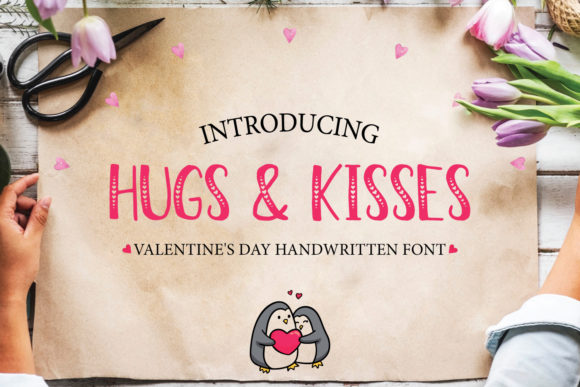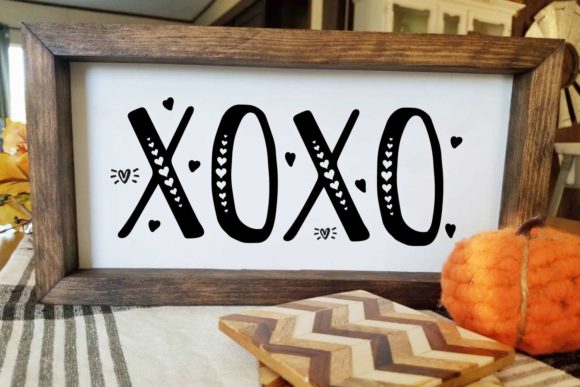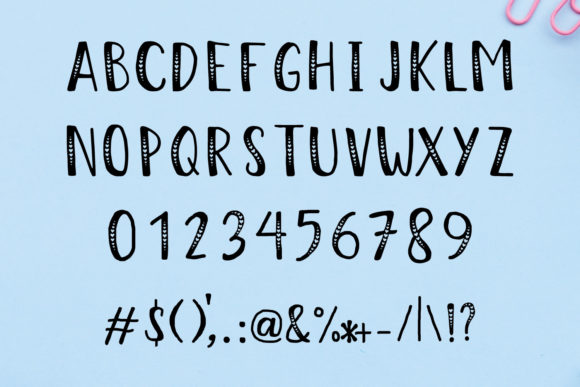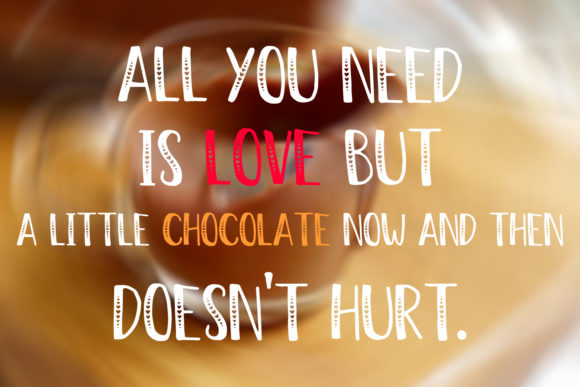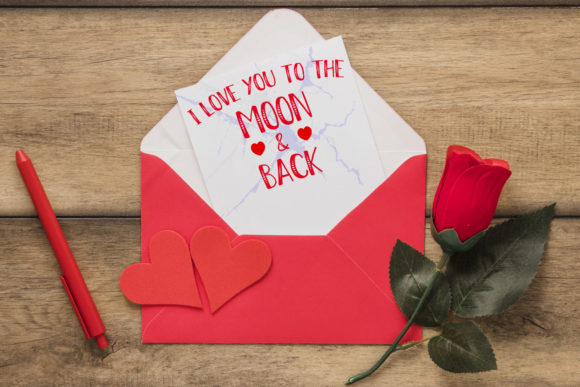
Hugs & Kisses Font
About Hugs & Kisses Font
The Hugs & Kisses is a cute and fun handwritten font for Valentine’s Day. It only includes uppercase’s with fun heart elements.
It’s the perfect font for creating those super fun and cute valentine’s day designs!